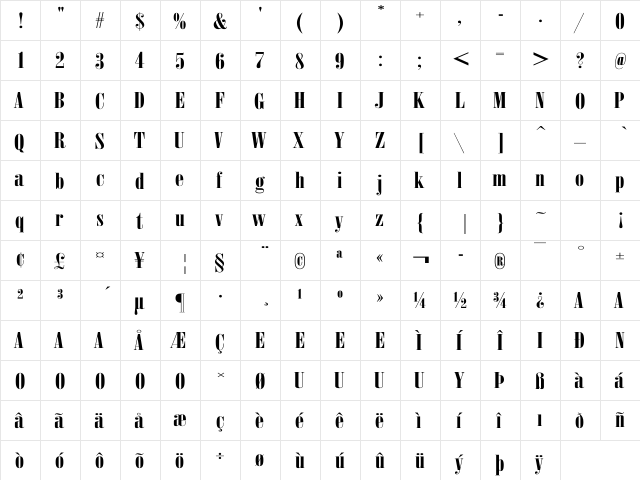
Arsis DReg Normal Regular
Design Context for Arsis DReg Normal Typeface
Arsis DReg Normal offers clean, dependable letterforms without strong stylistic allegiance, making it a practical choice for designers who need flexibility.
Pro Tip: Use Arsis DReg Normal in both headline and body roles to test its range before committing to a single application.